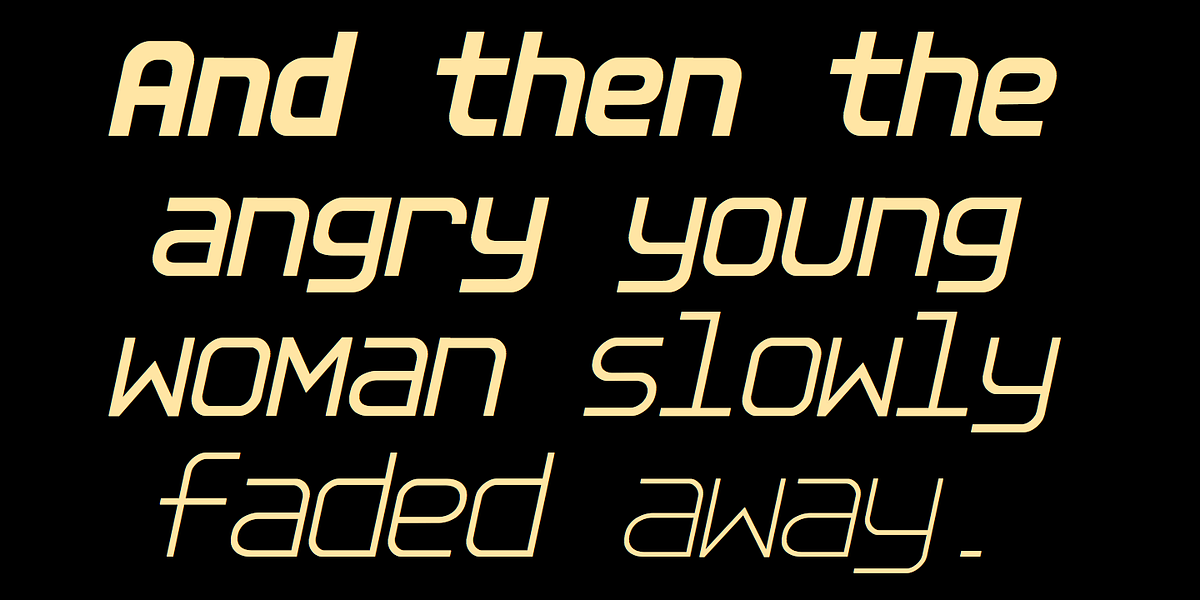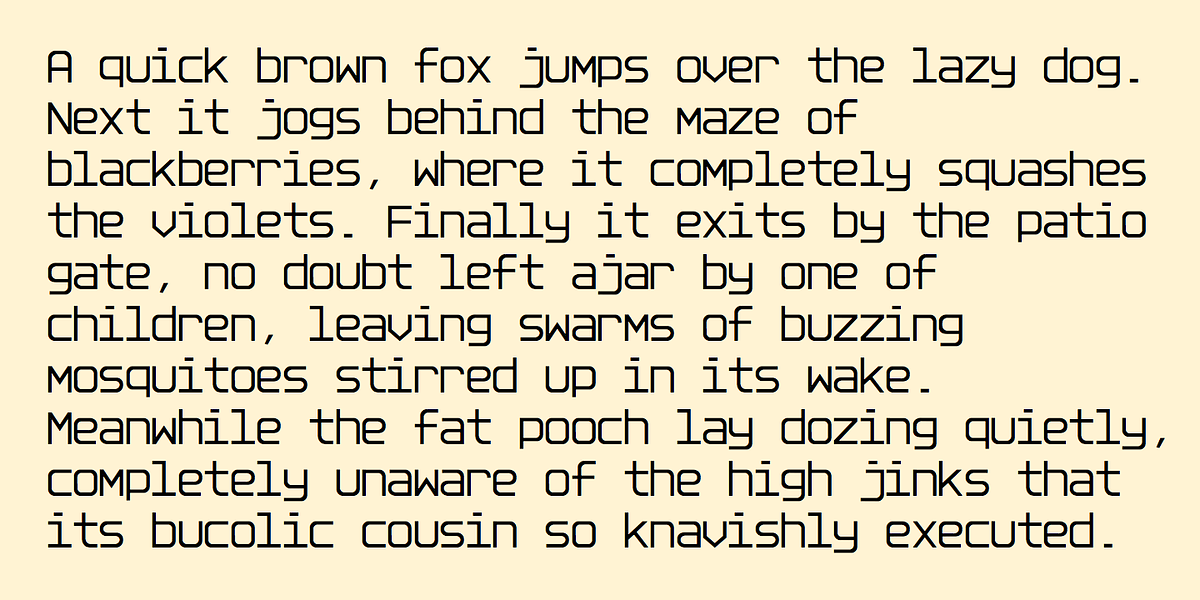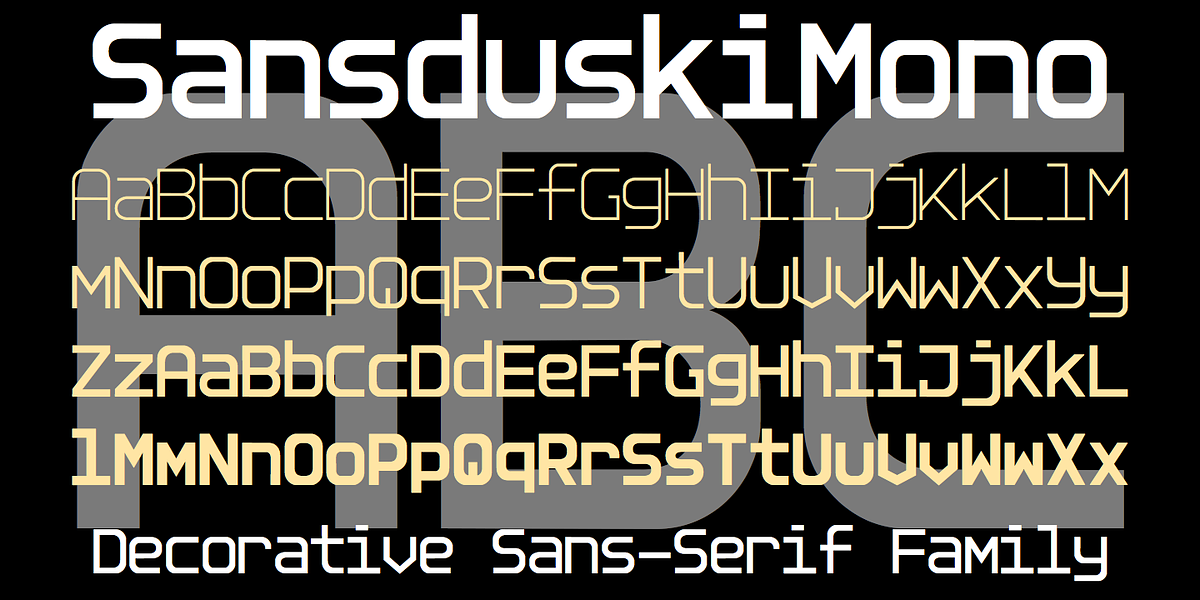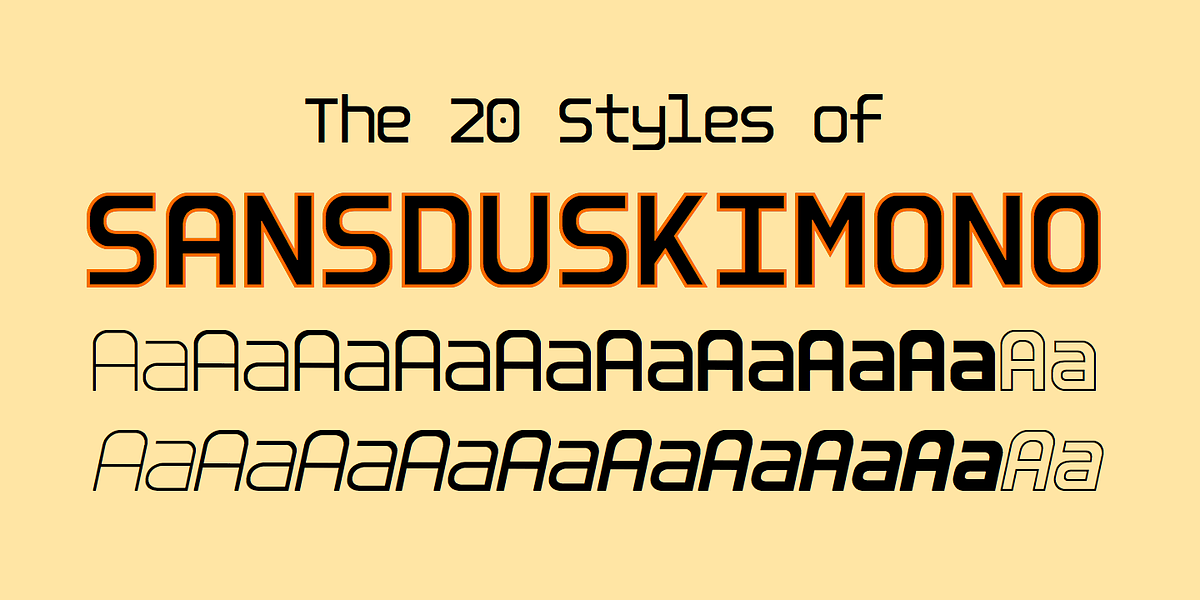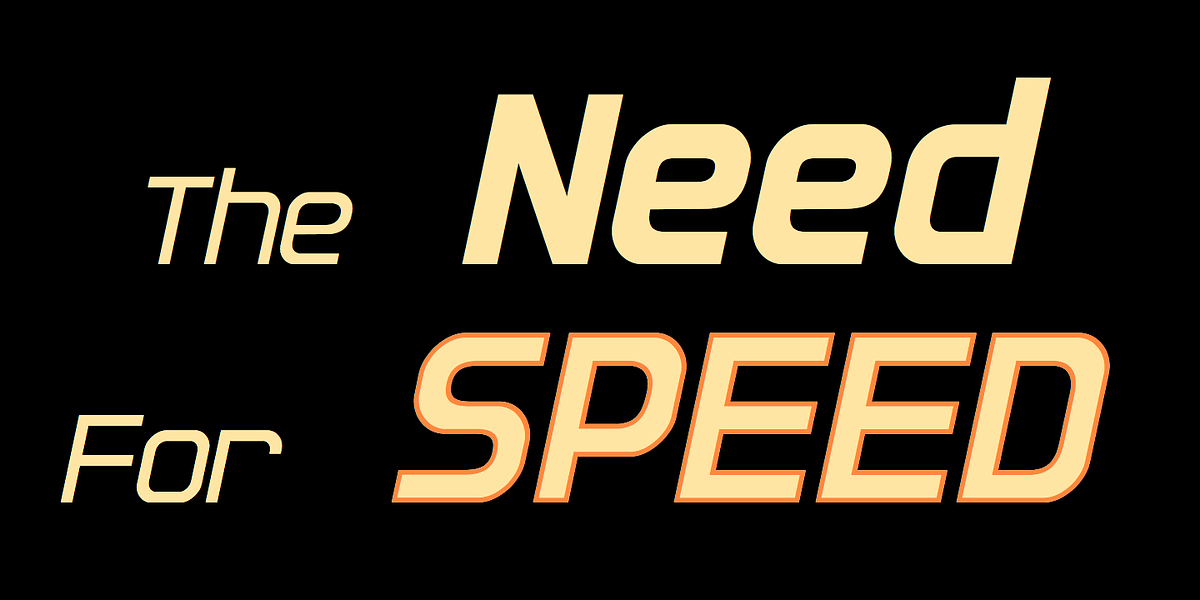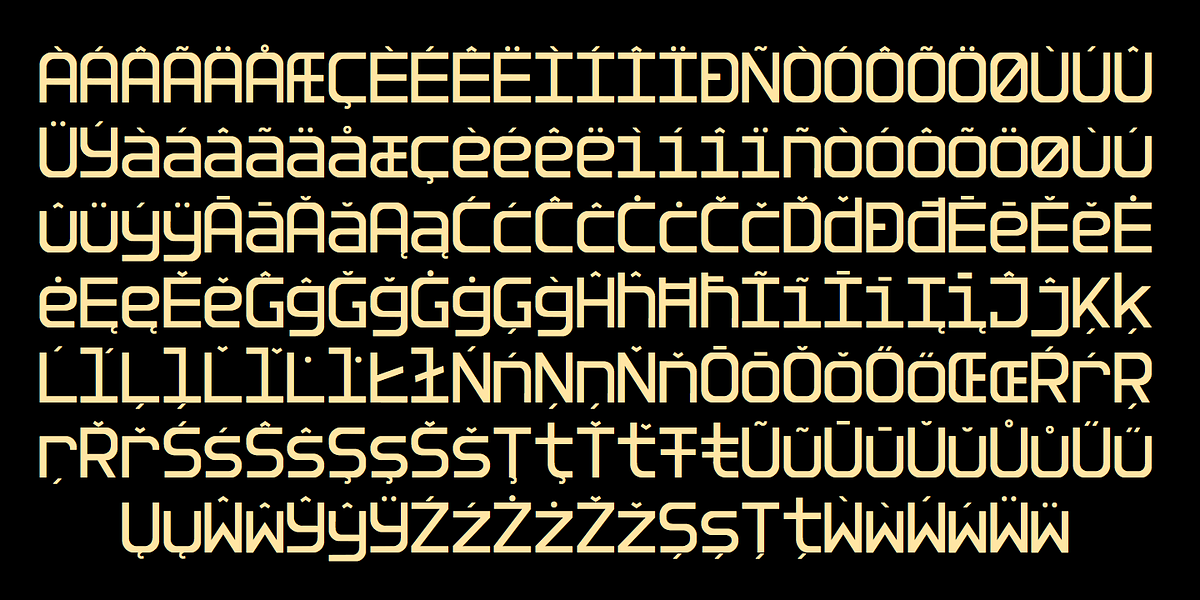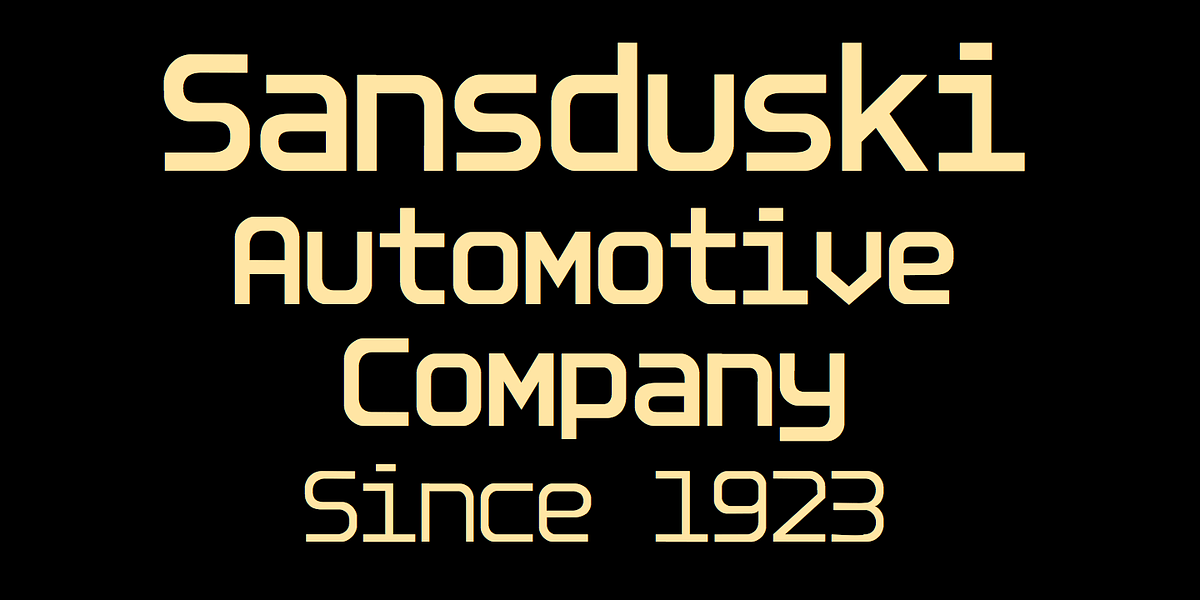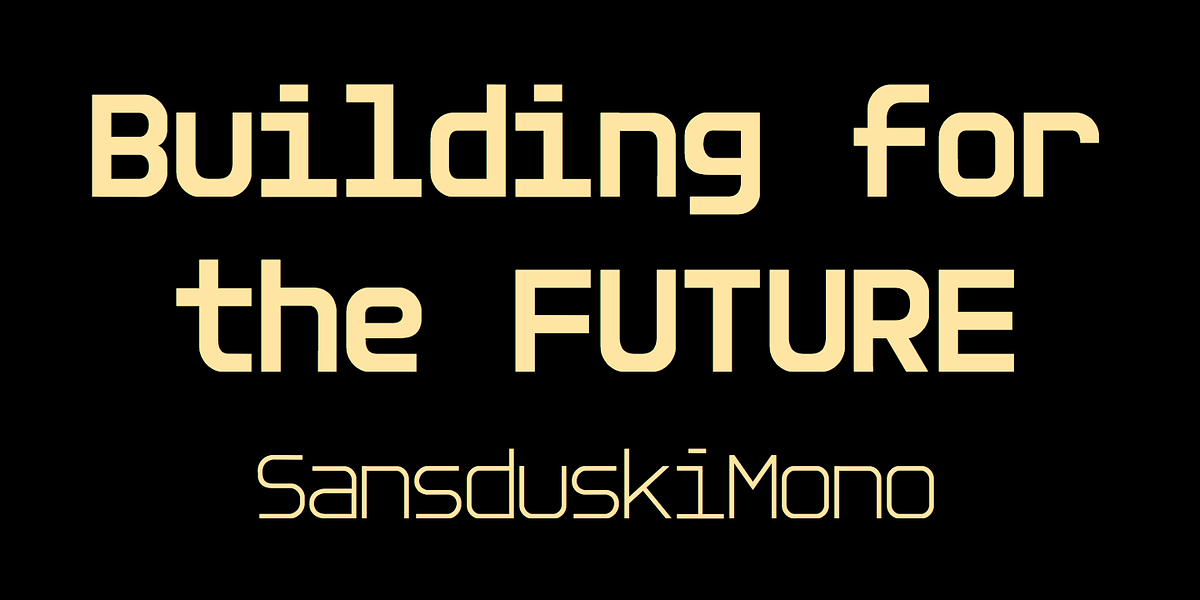
SansduskiMono
SansduskiMono is a monospaced sans serif font designed for display use. Its distinct geometric style features a high x-height and tight spacing, making it ideal for titles, posters, and advertising. The design originated from the typeface BigStripesMono, which utilized the OpenType feature Contextual Alternatives (calt) to add stripes to letters. SansduskiMono expands on this concept by including lowercase letters, eight additional weights, italics, and outline styles for the black weights.